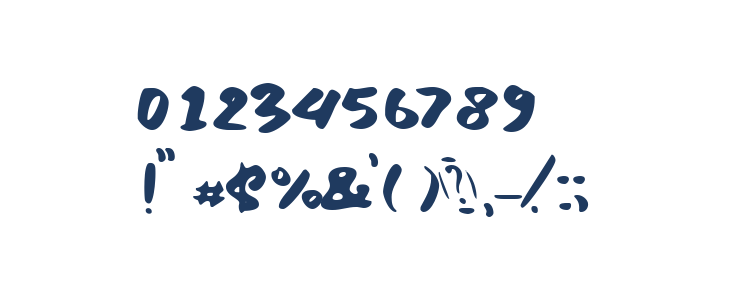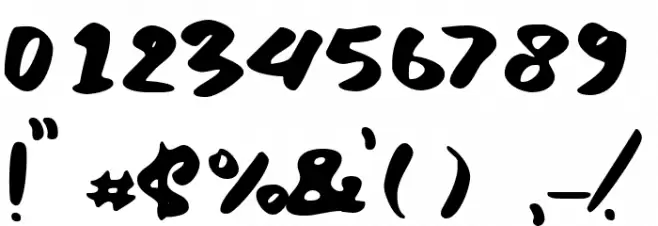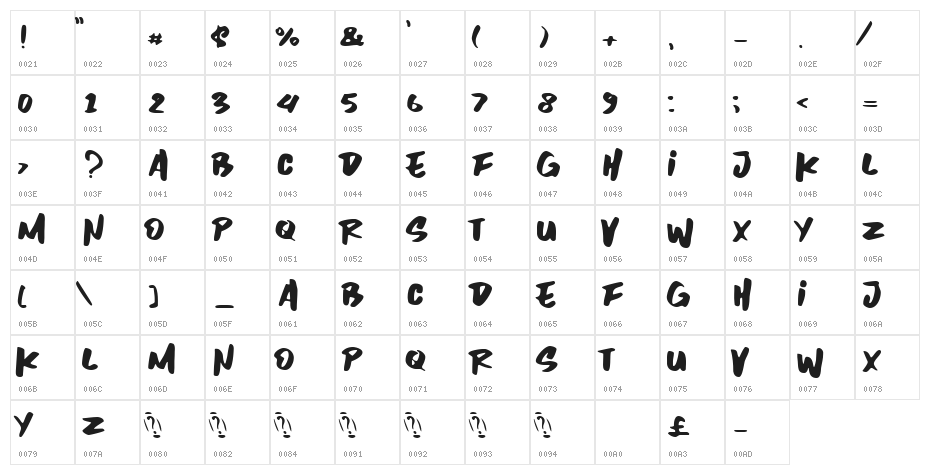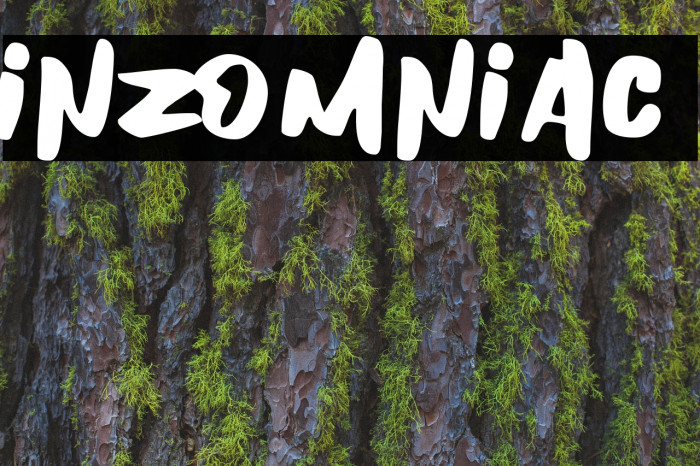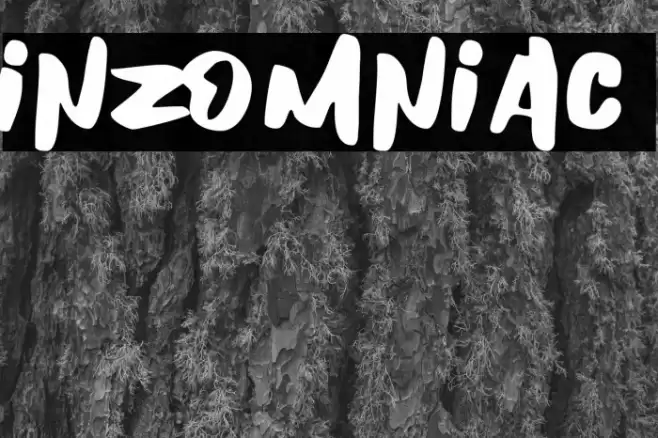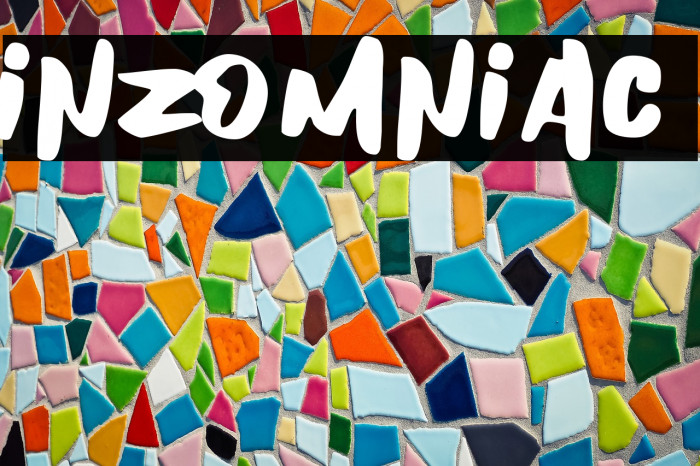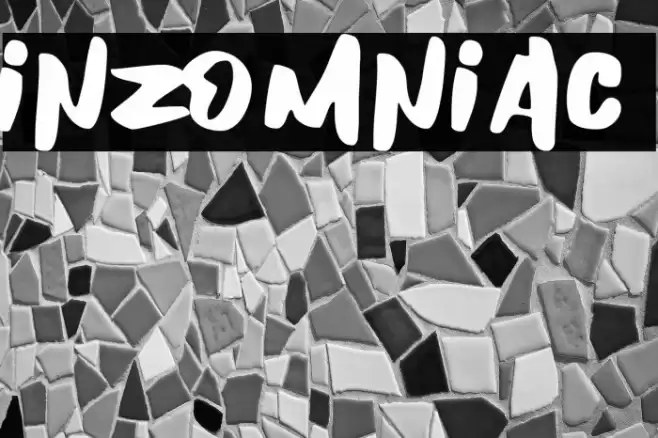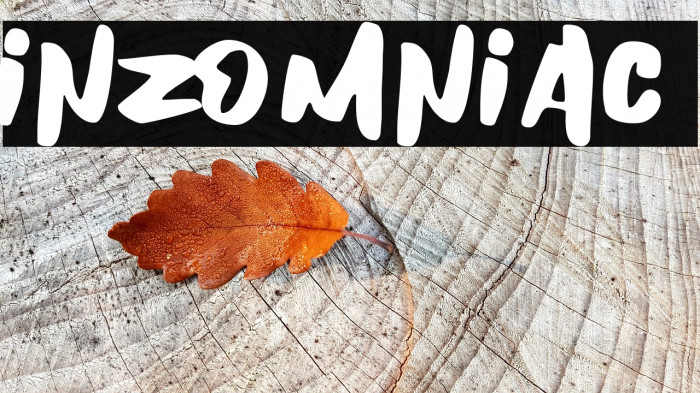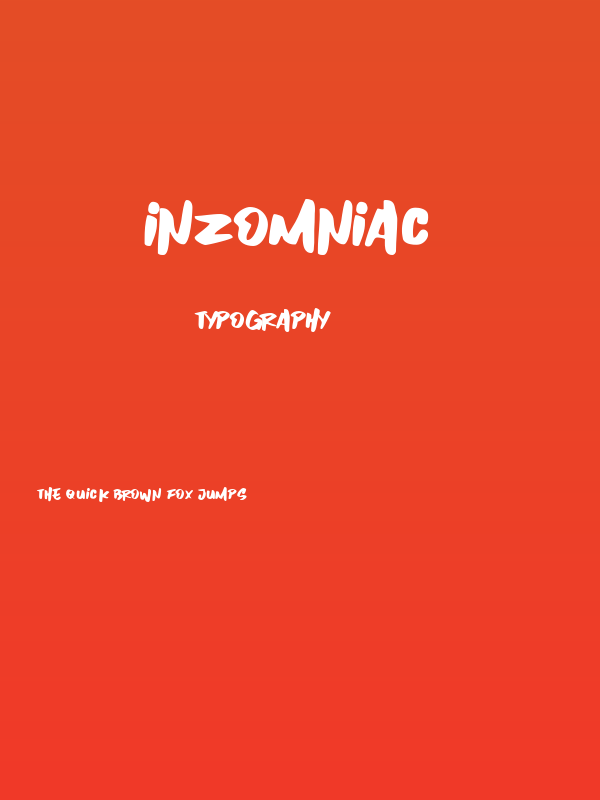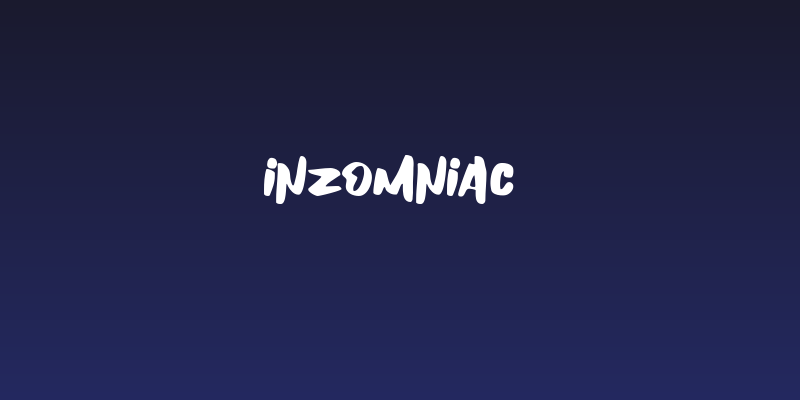
Inzomniac Font
Inzomniac Description
This font features a bold, energetic style with a handwritten appearance. The letters are thick and rounded, giving a sense of dynamism and playfulness. The strokes are consistent in weight, providing a uniform look across all characters. The uppercase and lowercase letters maintain a cohesive style, with slight variations that add to the handwritten feel. The numbers and special characters are equally bold and expressive, making them stand out. The overall design is modern and eye-catching, suitable for projects that require a lively and informal touch.
| Proposed Projects | Ideal for branding, posters, social media graphics, and any project needing a lively, informal touch. |